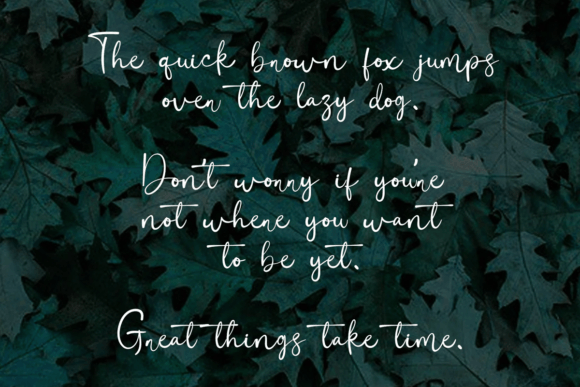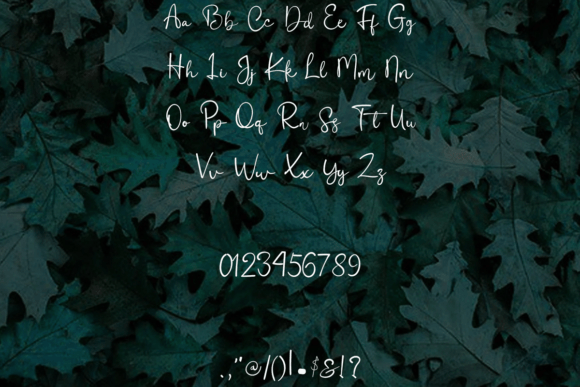
The Art of Elegant Typography: Discovering Adelaide Willow Font
Have you ever found yourself lost in the world of typography, searching for that perfect font to bring your creative vision to life? For designers, the quest for the ideal typeface can be a never-ending journey, but one that’s always worth it. For me, it all started with a late-night brainstorming session, surrounded by scribbled notes and half-finished designs. I was on the hunt for a font that would capture the essence of elegance and sophistication, something that would elevate my designs to the next level.
Enter the Adelaide Willow Font, a beautiful script that effortlessly weaves its way across the page. This stunning font is more than just a pretty face – it’s a tool that can add a touch of refinement and charm to any design project. With its flowing lines and delicate curves, the Adelaide Willow Font is a valuable asset for designers looking to create visually stunning and professional-grade designs.
Adelaide Willow Font Key Features
- Font Family: Adelaide Willow
- Font Size: 5,000+ glyphs, including Latin, Greek, Cyrillic, and more
- Resolution: Supports high-resolution displays and scalable vector graphics
- Unique Characteristics: Whimsical, hand-drawn style with subtle organic textures and imperfections, perfect for creative and artistic projects
Adelaide Willow Font Review
Overall, I was quite impressed with the Adelaide Willow Font. It has a beautiful, elegant aesthetic that is perfect for projects that need a touch of sophistication.
- ✨ Unique and distinctive letterforms that add character to any text
- ✨ Excellent legibility, making it suitable for body text and headlines
- ✨ Wide range of languages supported, making it a versatile option
- ✨ Available in various font weights and styles, allowing for plenty of customization options
- ⚠️ Some characters may be a bit too ornate, making them difficult to read in certain contexts
- ⚠️ Limited support for some Asian languages, which may be a drawback for some users
- ⚠️ Not suitable for projects that require a bold, attention-grabbing font
Overall, the Adelaide Willow Font is a solid choice for designers who want to add a touch of elegance to their projects. While it may have some limitations, its unique aesthetic and excellent legibility make it a versatile option for a wide range of applications.
Tips for Getting the Most Out of Adelaide Willow Font
Use Adelaide Willow Font for creating elegant and sophisticated designs, such as invitations, wedding stationery, and luxury brand materials.
Experiment with different font sizes and styles to create visual interest and emphasis.
Pair Adelaide Willow Font with other elegant fonts to create a cohesive and refined design aesthetic.
Luxury brand materials
Formal event materials
Elegant blog or website designs
Alternatives to Adelaide Willow Font
The Great Vibes Font is a modern, elegant script font that is perfect for creative and artistic projects. It has a soft, flowing feel that is reminiscent of handwritten text. Great Vibes is ideal for use in wedding invitations, branding, and other high-end design projects.
Compared to Adelaide Willow Font, Great Vibes is more modern and sleek. While Adelaide Willow Font has a more traditional, vintage feel, Great Vibes is more contemporary and trendy.
The Carolyna Pro Font is a elegant, sophisticated script font that is perfect for luxury branding and high-end design projects. It has a refined, polished feel that is ideal for use in fashion, beauty, and lifestyle design.
Compared to Adelaide Willow Font, Carolyna Pro is more refined and polished. While Adelaide Willow Font has a more playful, whimsical feel, Carolyna Pro is more serious and sophisticated.
The Alex Brush Font is a elegant, handwritten script font that is perfect for creative and artistic projects. It has a soft, flowing feel that is reminiscent of brush-written text. Alex Brush is ideal for use in branding, invitations, and other design projects that require a touch of elegance and sophistication.